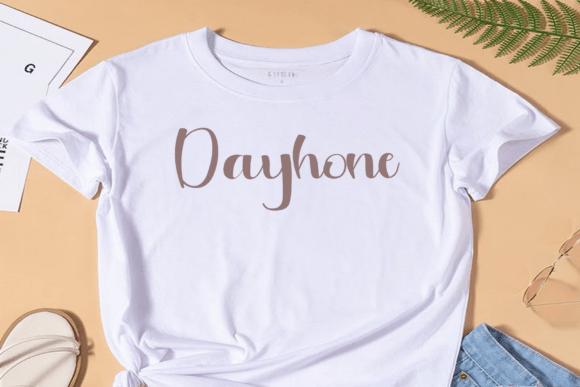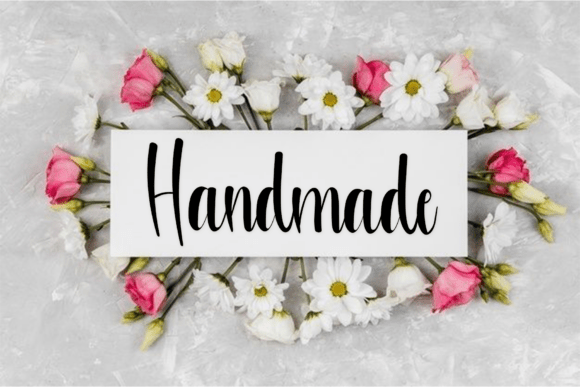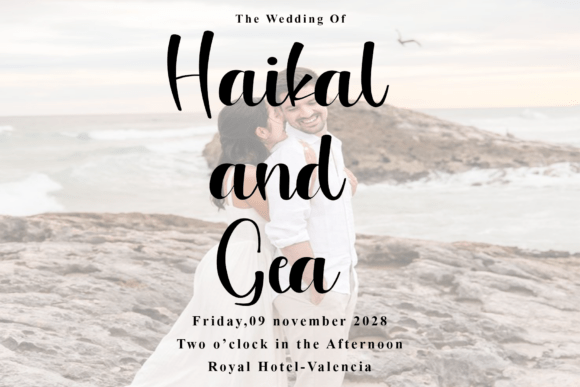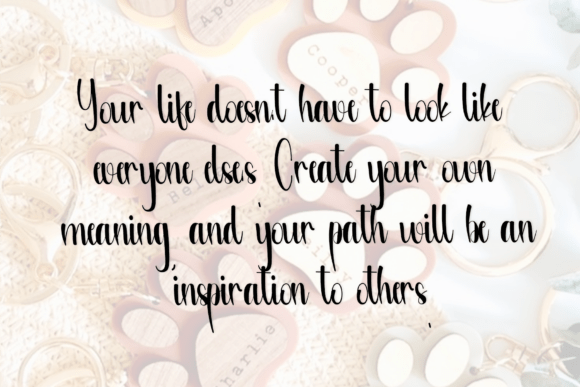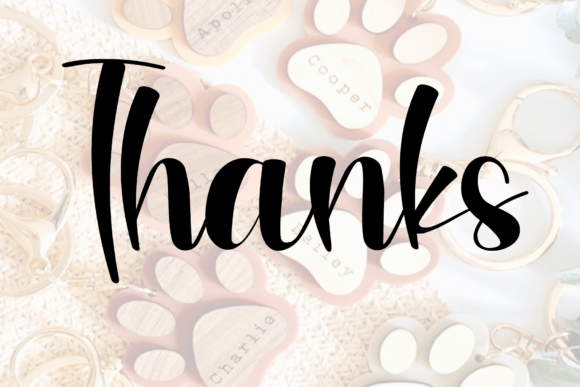
Discover the Charm of Engraving Font: A Bold and Sturdy Handwritten Typeface
Are you a designer or crafter looking for a unique and professional font to elevate your brand or project? Look no further than Engraving Font, a bold and sturdy handwritten typeface that blends organic charm with a strong typographic presence. In this article, we’ll explore the features and benefits of Engraving Font, and how it can be used to create stunning designs that stand out from the crowd.
The Characteristics of Engraving Font
Engraving Font is a beautifully crafted handwritten font that features thick, solid strokes with a distinct “bouncy” rhythm. This gives it a friendly and approachable character that’s perfect for designs that need a personal touch. The font’s well-balanced proportions ensure it remains impactful even in busy designs, making it an excellent choice for a wide range of applications.
As part of the “Unique and Professional” collection, Engraving Font is designed to provide a strong typographic presence that’s both stylish and legible. Its organic charm and handmade look make it perfect for designs that need a touch of personality and whimsy.
Perfect for Outdoor Lifestyle Branding and More
Engraving Font is perfectly suited for outdoor lifestyle branding, organic product packaging, travel-themed graphics, and rustic event invitations that need a “smart” and adventurous handmade look. Whether you’re designing a logo, brochure, or social media graphics, Engraving Font is an excellent choice for creating stunning designs that capture the essence of your brand or project.
For outdoor lifestyle brands, Engraving Font offers a fresh and adventurous look that’s perfect for conveying a sense of freedom and exploration. Its bold and sturdy strokes make it easy to read, even at smaller sizes, making it an excellent choice for signage, labels, and other applications where legibility is key.
Why Choose Engraving Font?
So why choose Engraving Font over other fonts? Here are just a few reasons why designers and crafters love this versatile typeface:
• Unique and Professional: Engraving Font is part of the “Unique and Professional” collection, making it an excellent choice for designers and crafters who need a font that stands out from the crowd.
• Handmade Look: Engraving Font features a handmade look that’s perfect for designs that need a personal touch.
• Legible and Readable: Despite its bold and sturdy strokes, Engraving Font is easy to read, even at smaller sizes.
• Versatile: Engraving Font is perfect for a wide range of applications, from outdoor lifestyle branding to rustic event invitations.
Tips for Using Engraving Font
Here are a few tips for using Engraving Font in your designs:
• Pair with Other Fonts: Engraving Font pairs well with other fonts, especially those with a more minimalist or modern look.
• Experiment with Colors: Engraving Font looks great in a variety of colors, from earthy tones to bold and bright hues.
• Play with Texture: Engraving Font can be used with a variety of textures, from smooth and clean to rough and distressed.
Font Name Engraving Font
Author Preketek texs
Engraving Font is a bold and sturdy handwritten typeface that’s perfect for designers and crafters who need a unique and professional font. Its organic charm, handmade look, and strong typographic presence make it an excellent choice for a wide range of applications, from outdoor lifestyle branding to rustic event invitations. With its versatility, legibility, and readability, Engraving Font is sure to become a favorite in your design toolkit.